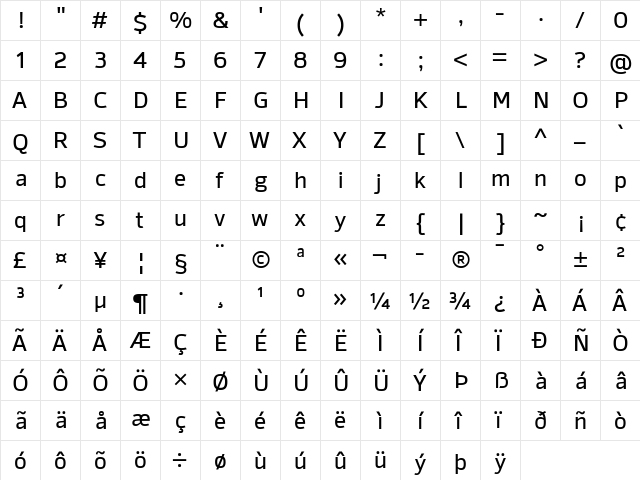
Syke Regular Font Preview
Syke Regular
Syke Regular Font Details
| Foundry | The Northern Block Ltd. |
| Designer | Jonathan Hill |
Design Context for Syke Typeface
Syke takes a measured approach to typography — its balanced proportions and neutral character make it a reliable workhorse for both digital and print work.